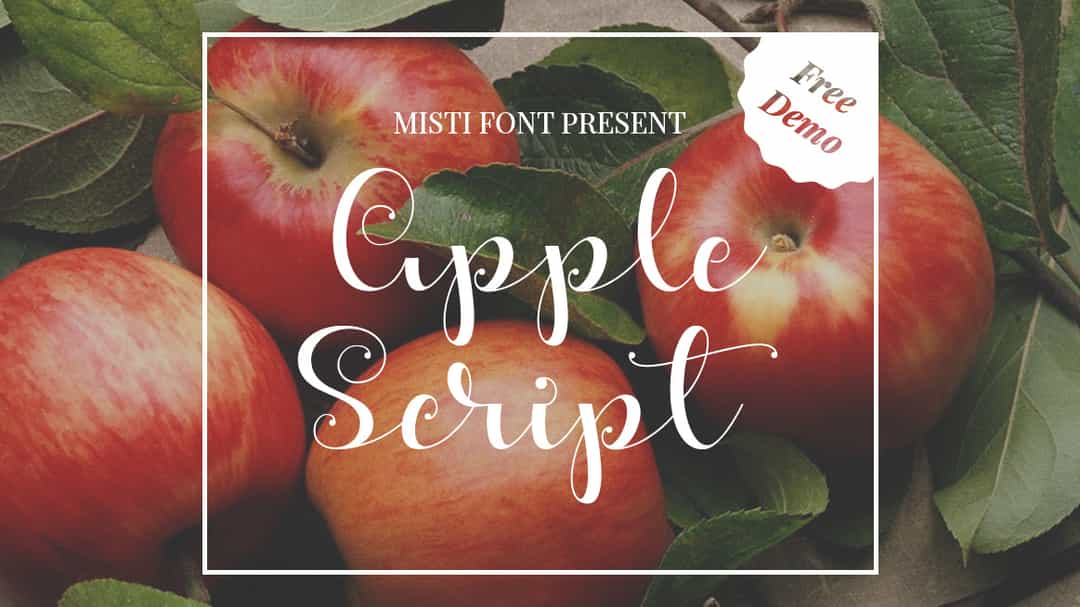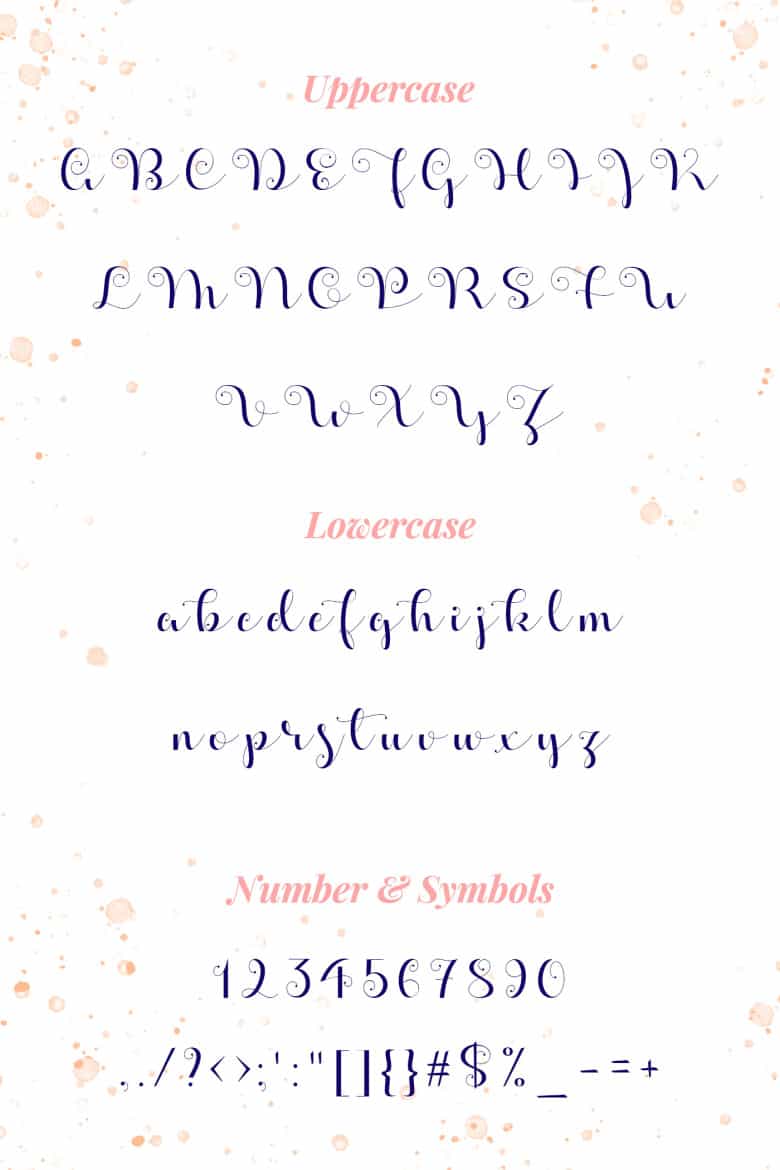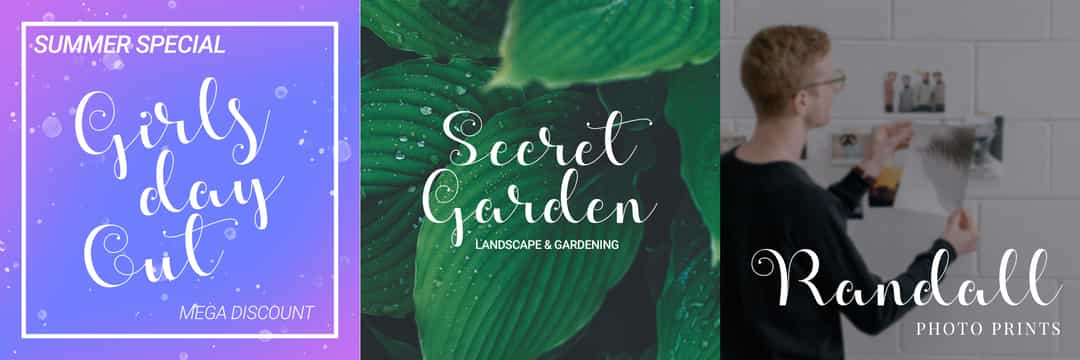
Discover Apple Script Free Font, part of the Calligraphy collection—a versatile and unique font perfect for adding a personal touch to your projects. Download it for free and enjoy crafting designs with style, from invitations to social media posts. This font is available exclusively for personal use, giving you the freedom to create without limits. Unlock your creativity with Apple Script Free Font today!
Welcome the “Apple Script” embroidery font – your reliable assistant and a great asset in design elaboration. Dress up your monograms, graphics and fabrics with this script that can be described as both refined and frivolous. The peculiarity of our product is that the digital download format means it will be available for anyone, regardless of their level of experience – starting from the very beginning, within moments.